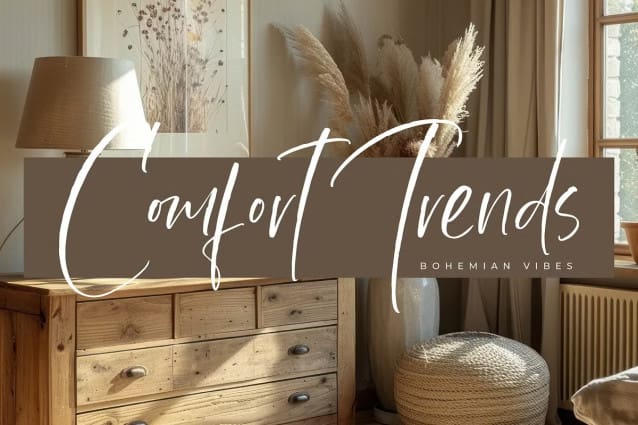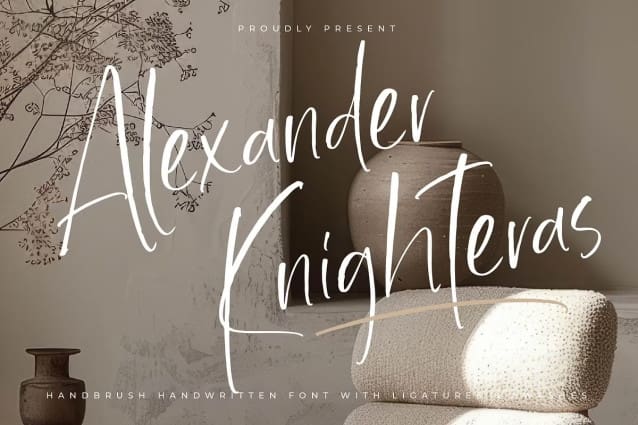
Alexander Knighteras Font
Alexander Knighteras Font – Modern Handwritten Font, from Integritype Studio, perfect for any project like: logos, branding projects, homewares designs, product packaging, mugs, quotes, posters, shopping bags, t-shirts, covers books, business cards, invitation cards, greeting cards, labels, photography, watermarks, special events and all your other luxury projects that require a premium taste.